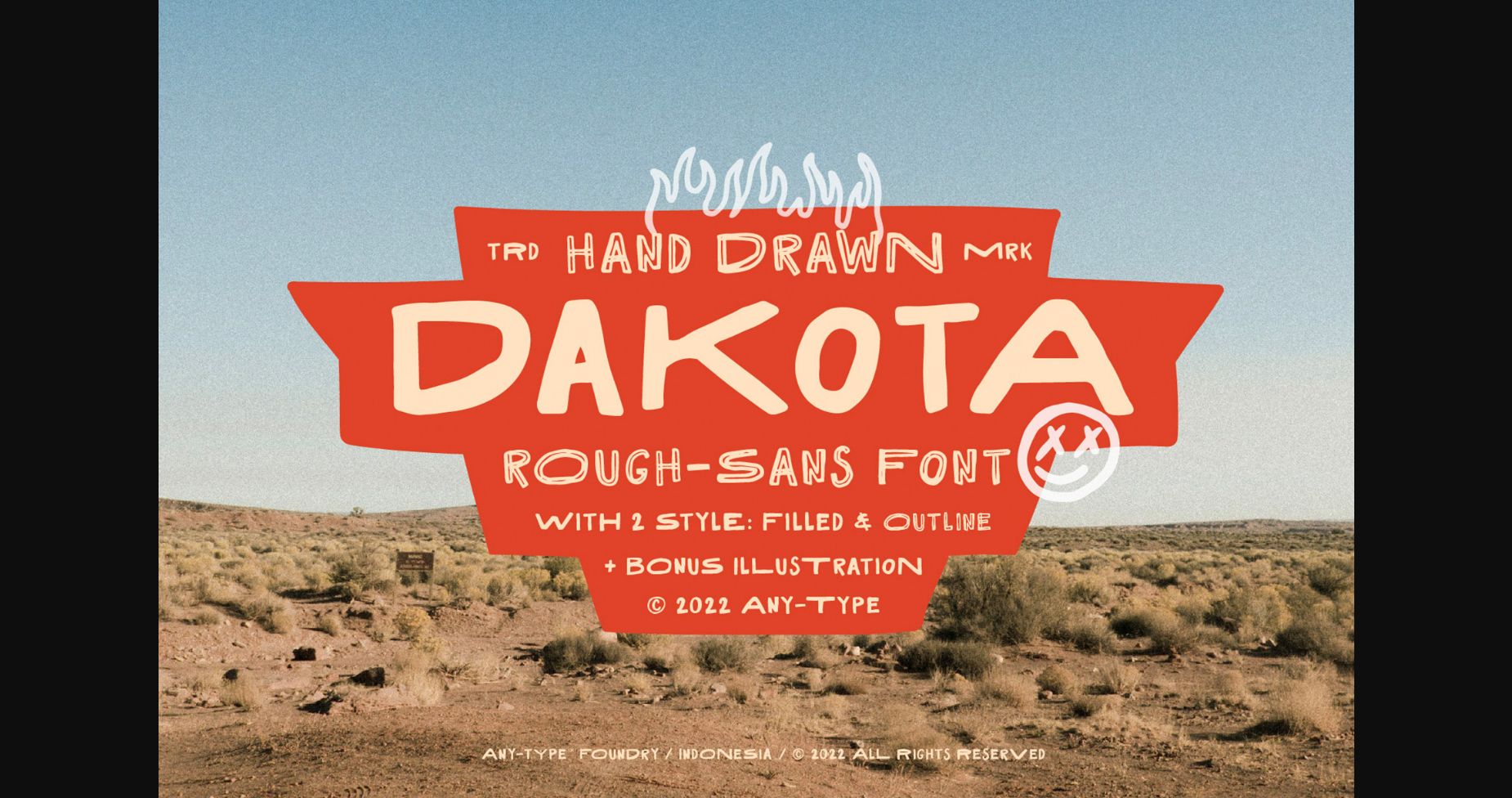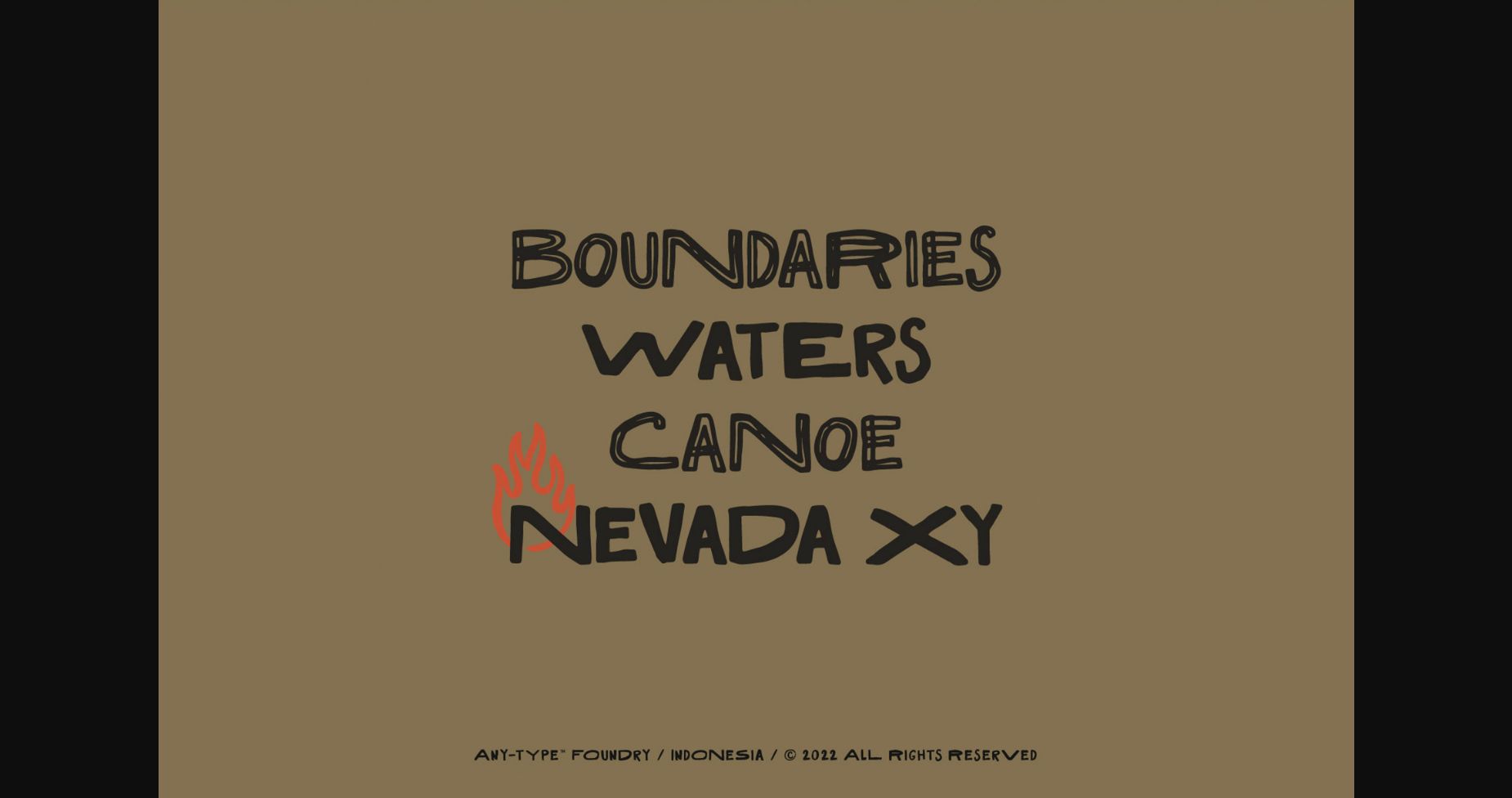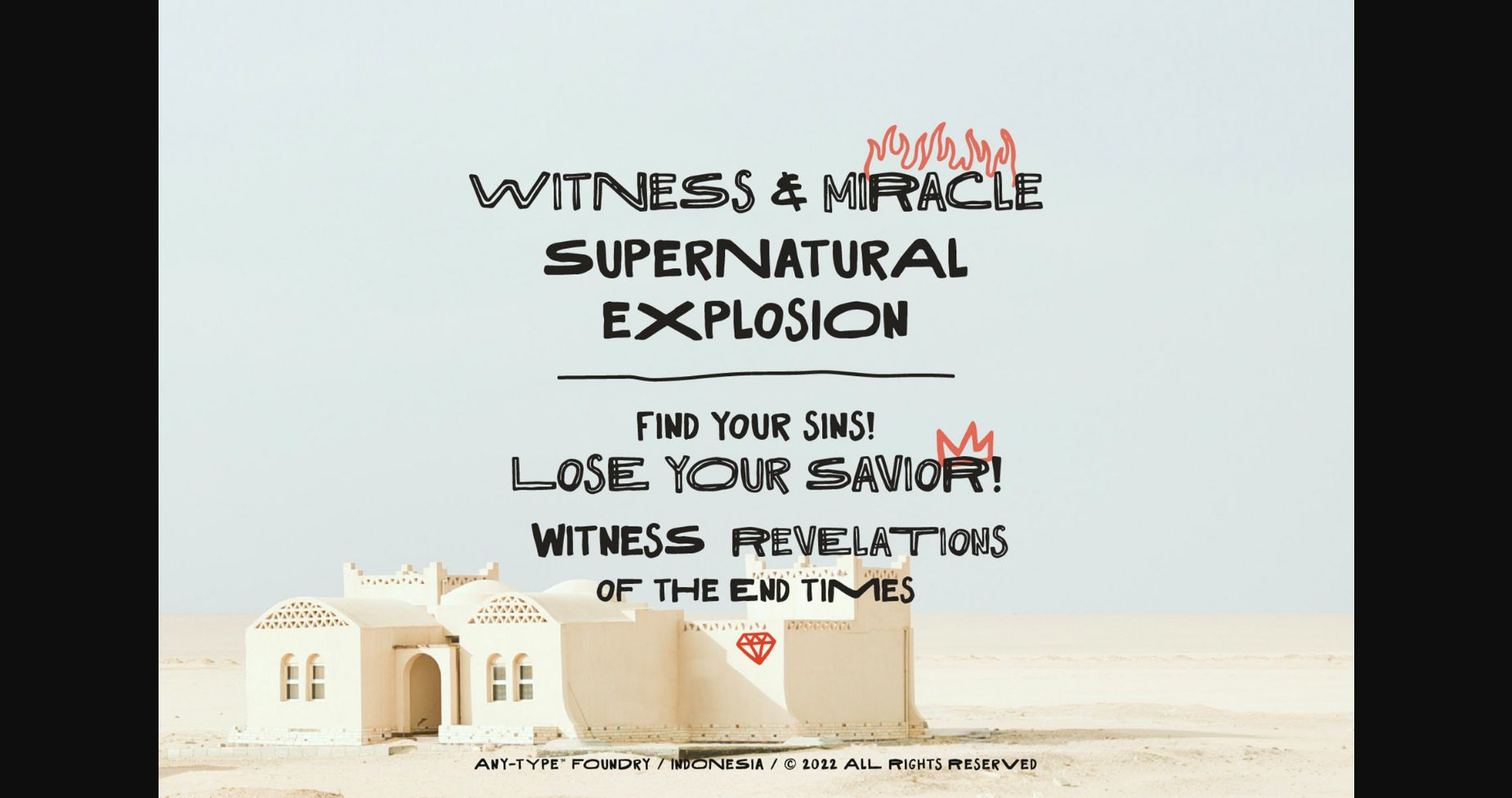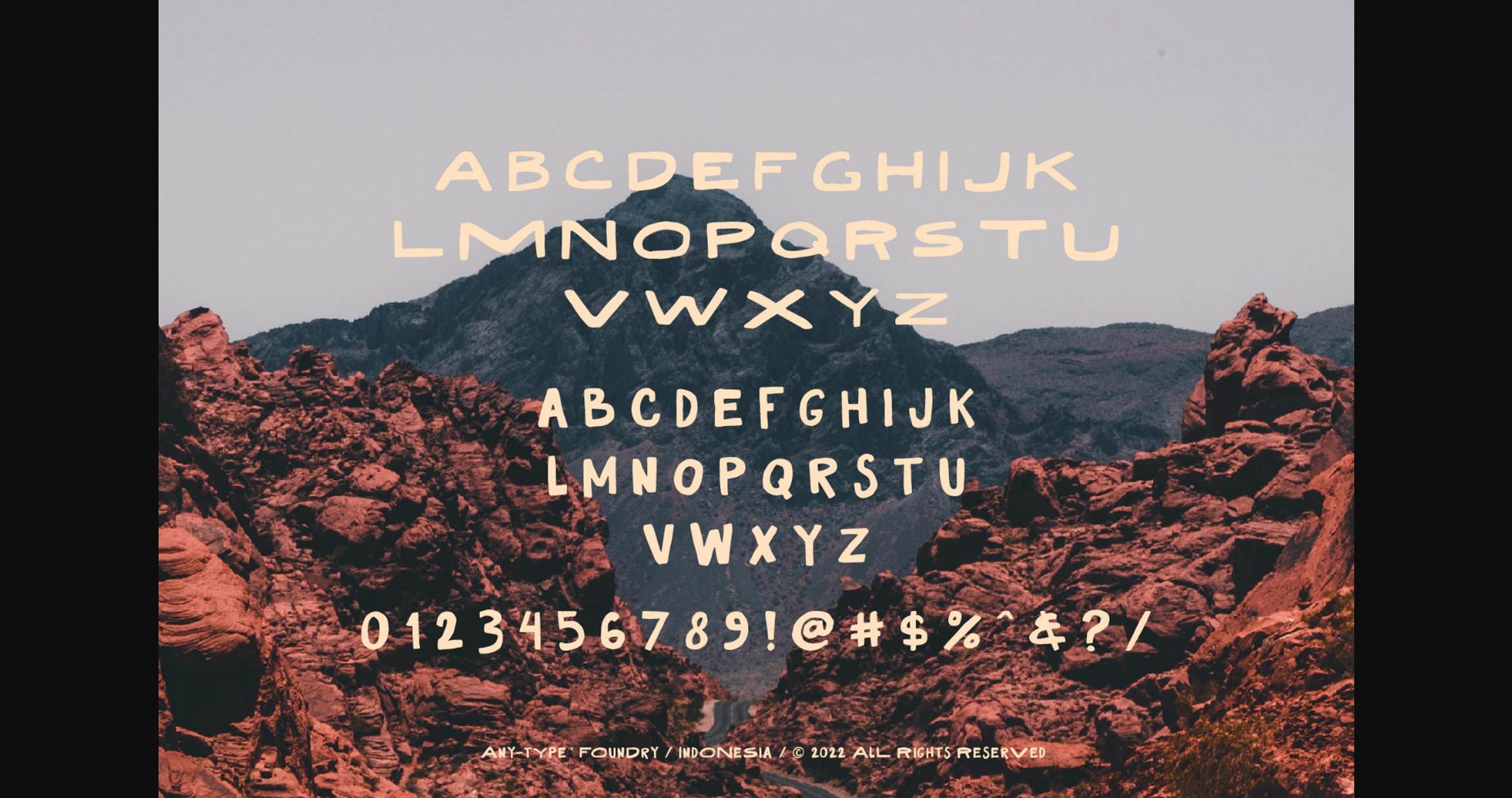
About Dakota Font
Dakota is a vintage styled and cool sans serif font. It is suitable for logotype, headline font, in corporate identity, brand identity, apparel industry, poster, music, movie, game, magazine, book, comic, cartoon, YouTube, Instagram, website, or any of your creative design projects.